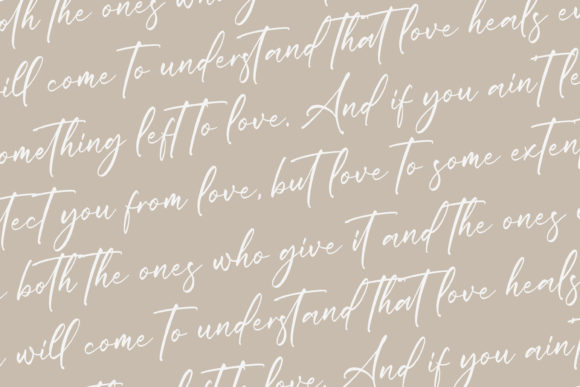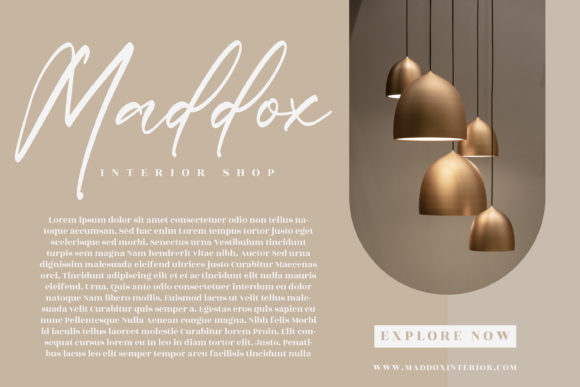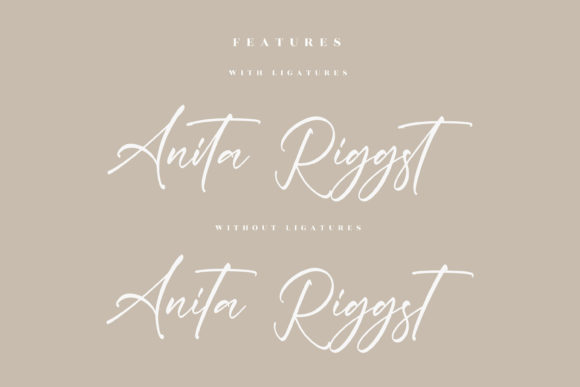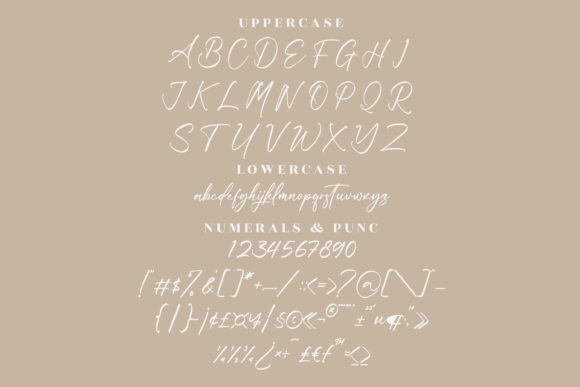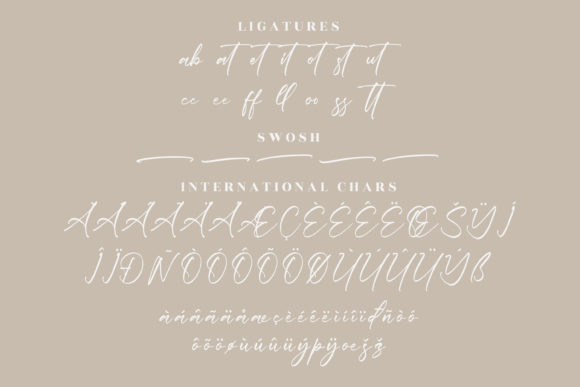
About Delmate Fasteria Font
Delmate Fasteria is a stylish and incredibly elegant script font. It looks stunning on a variety of designs which need a customized touch.